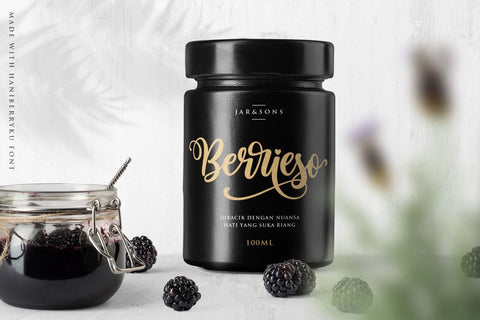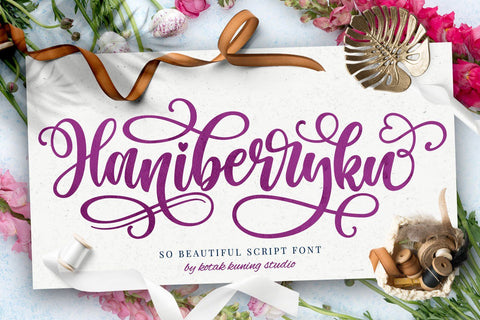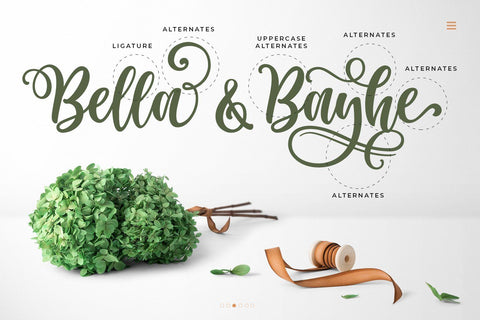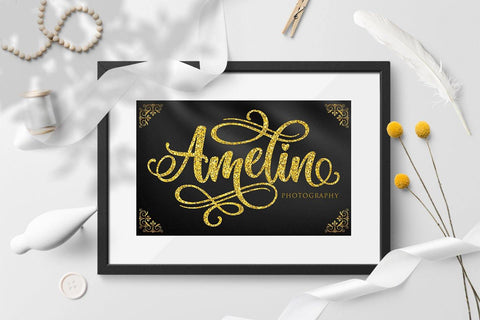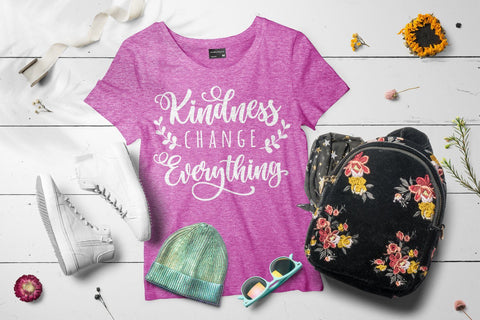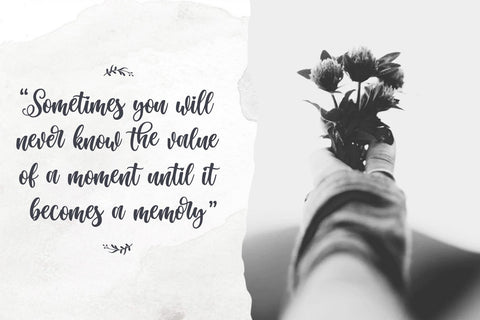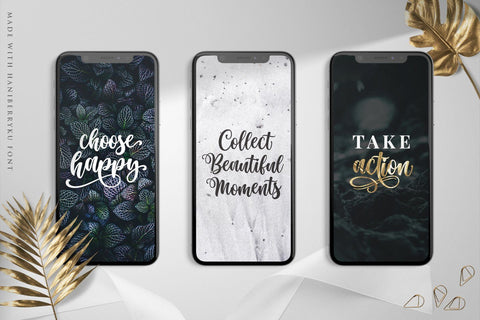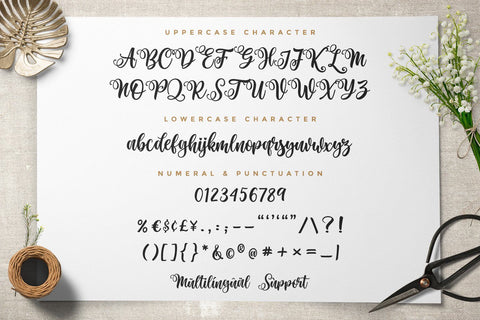
Haniberryku Font - Beautiful Script
Haniberryku is a beautiful script font with a natural & stylish flow. Perfect for making elegant stylish statements – or adding a touch of class to your designs. This script has a multitude of lovely alternates character in its OpenType features – making the font look a beautiful
Haniberryku is perfect for many different projects such as logos & branding, invitation, stationery, wedding designs, social media posts, advertisements, product packaging, product designs, label, photography, watermark, special events, or anything.